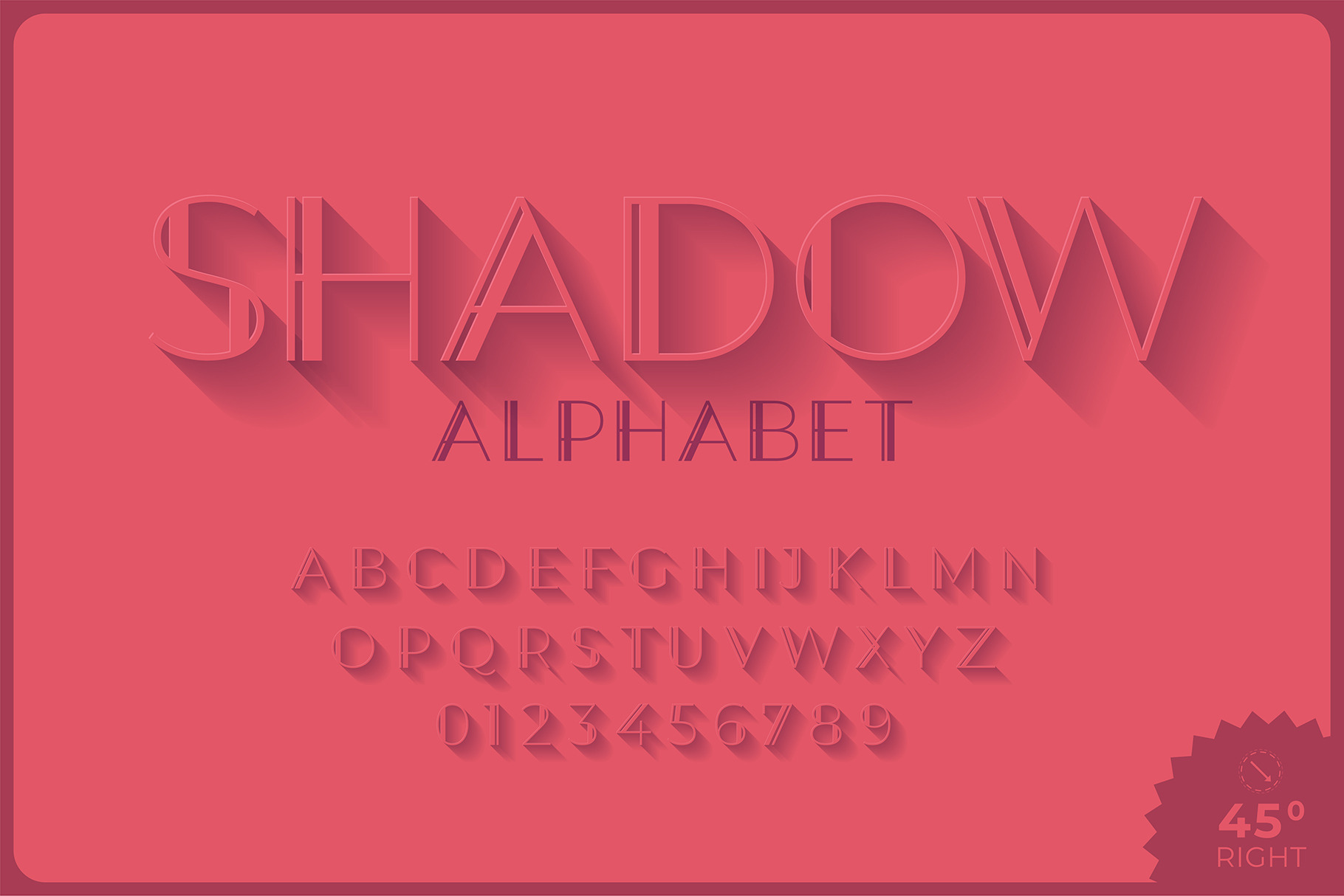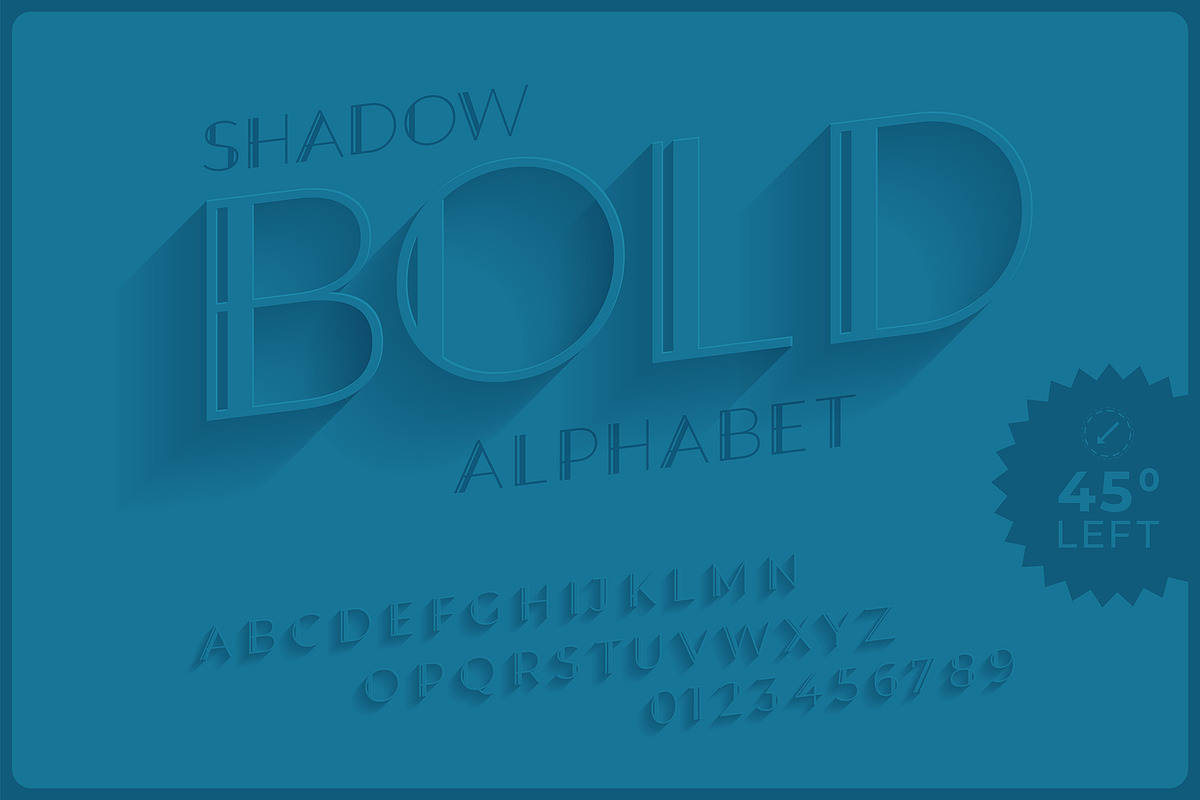
Elegant Shadow Alphabet Font
Elegant Modern Alphabet Font with Long Transparency Shadow Effect. Stylish Decorative Typeface for Posters, Headlines and Creative Design - EPS (Not a Font!)
- Uppercase letters A - Z (italics and normal)
- Numbers 0 - 9 (italics and normal)
- Clean, modern, and unique alphabet design